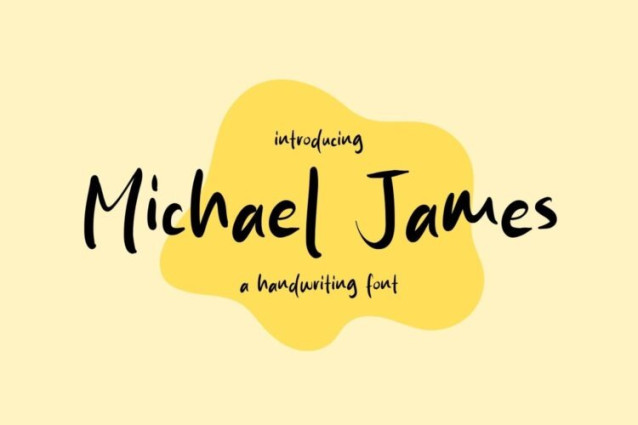
Michael James Font
Michael James Font is a simple and friendly handwritten font. Its natural and unique style makes it incredibly fitting to a large pool of designs. The only limit is your imagination!